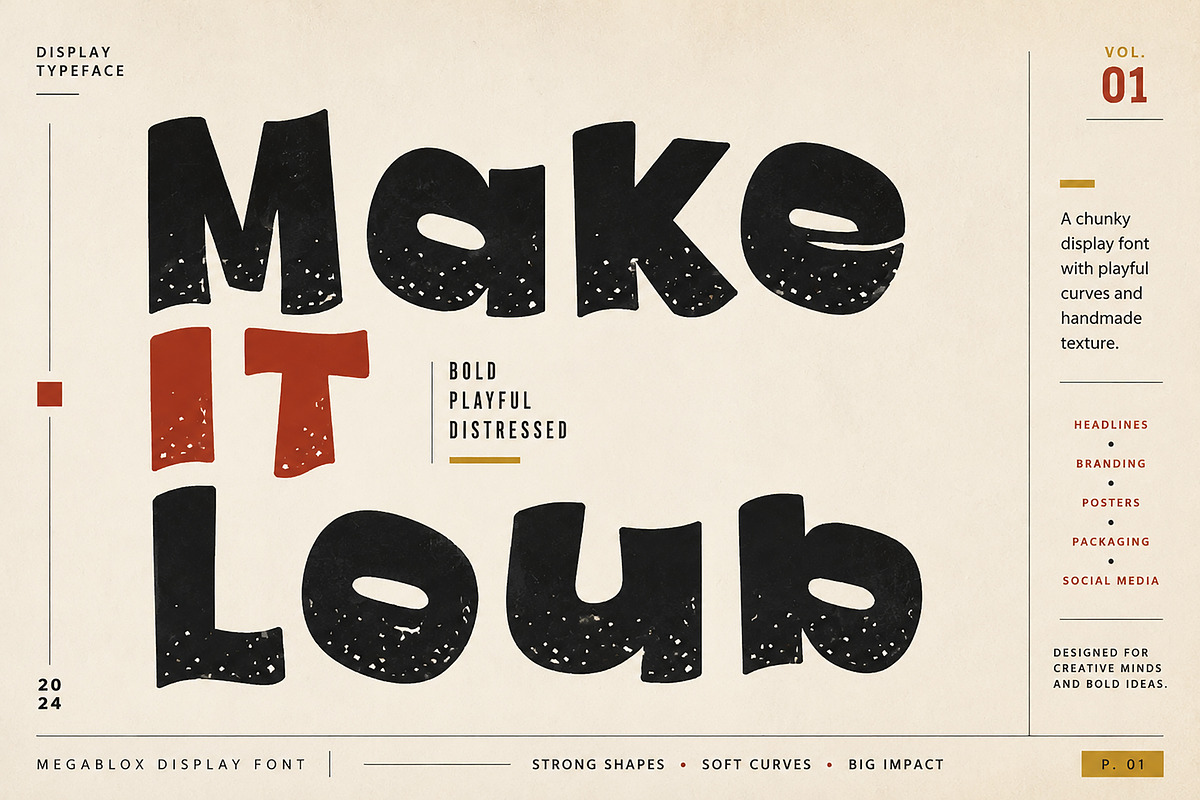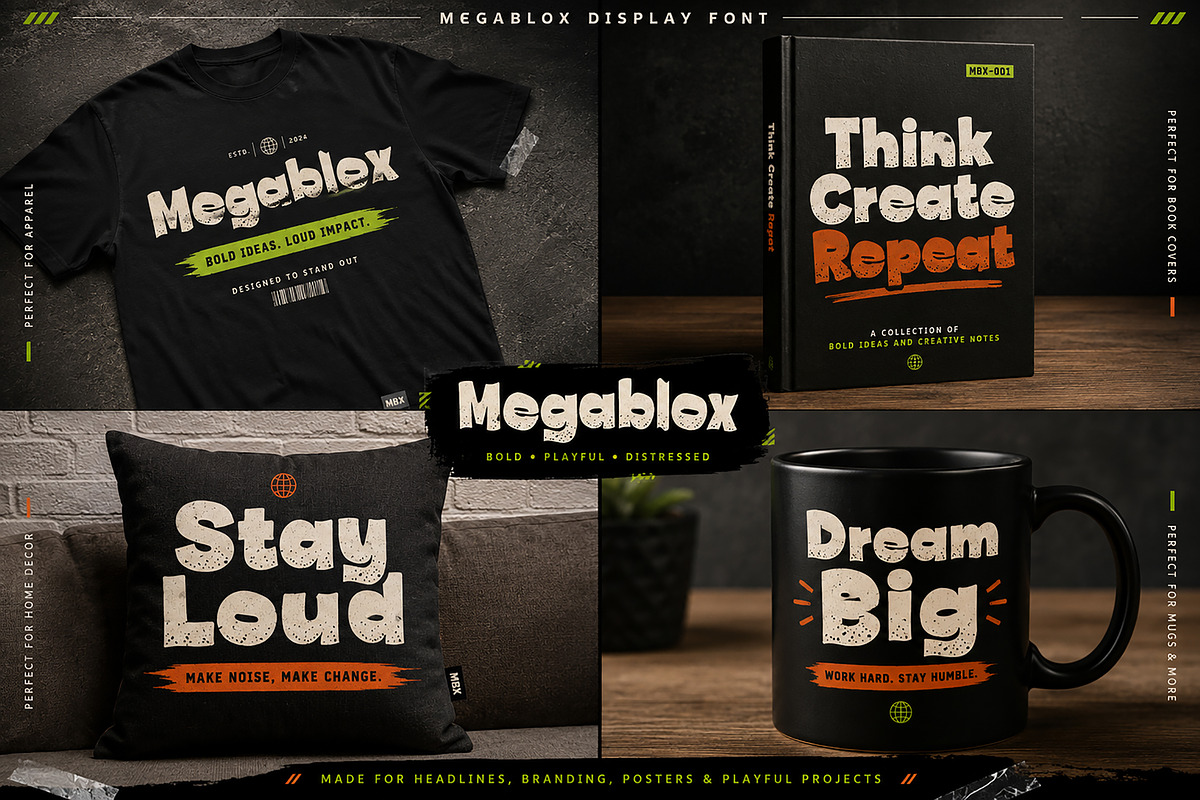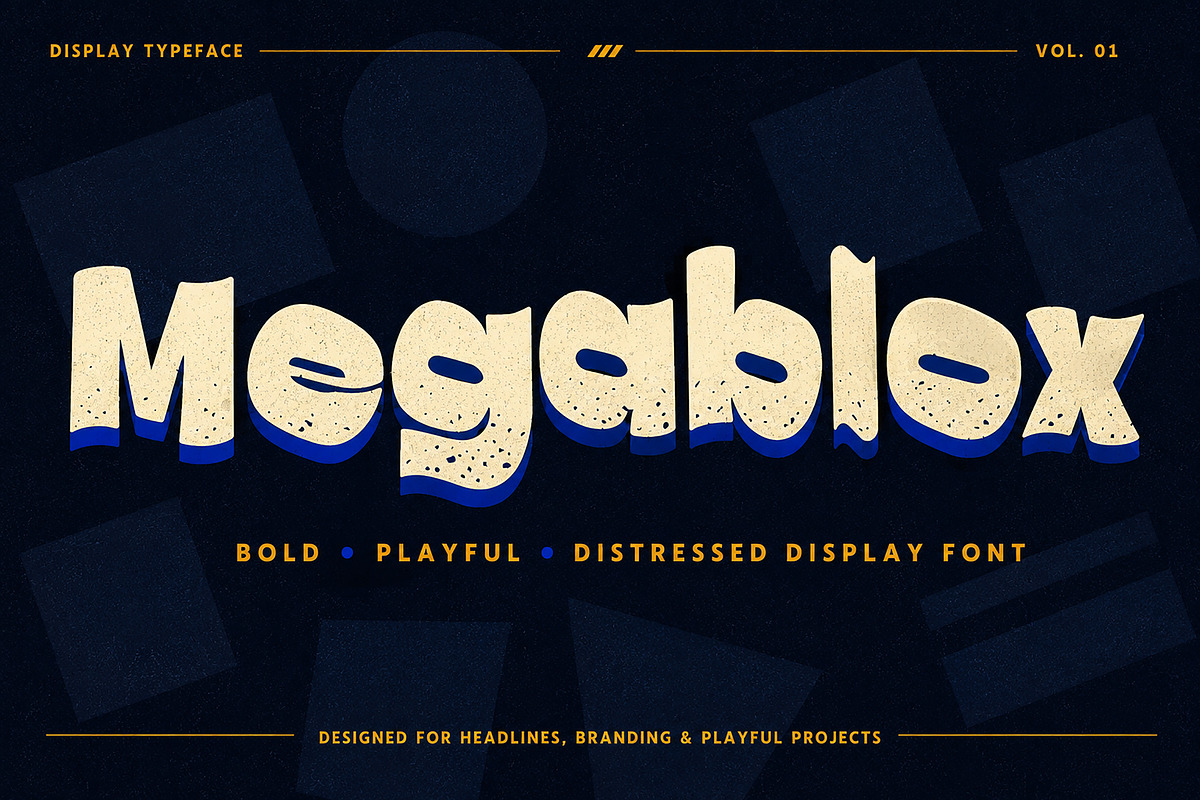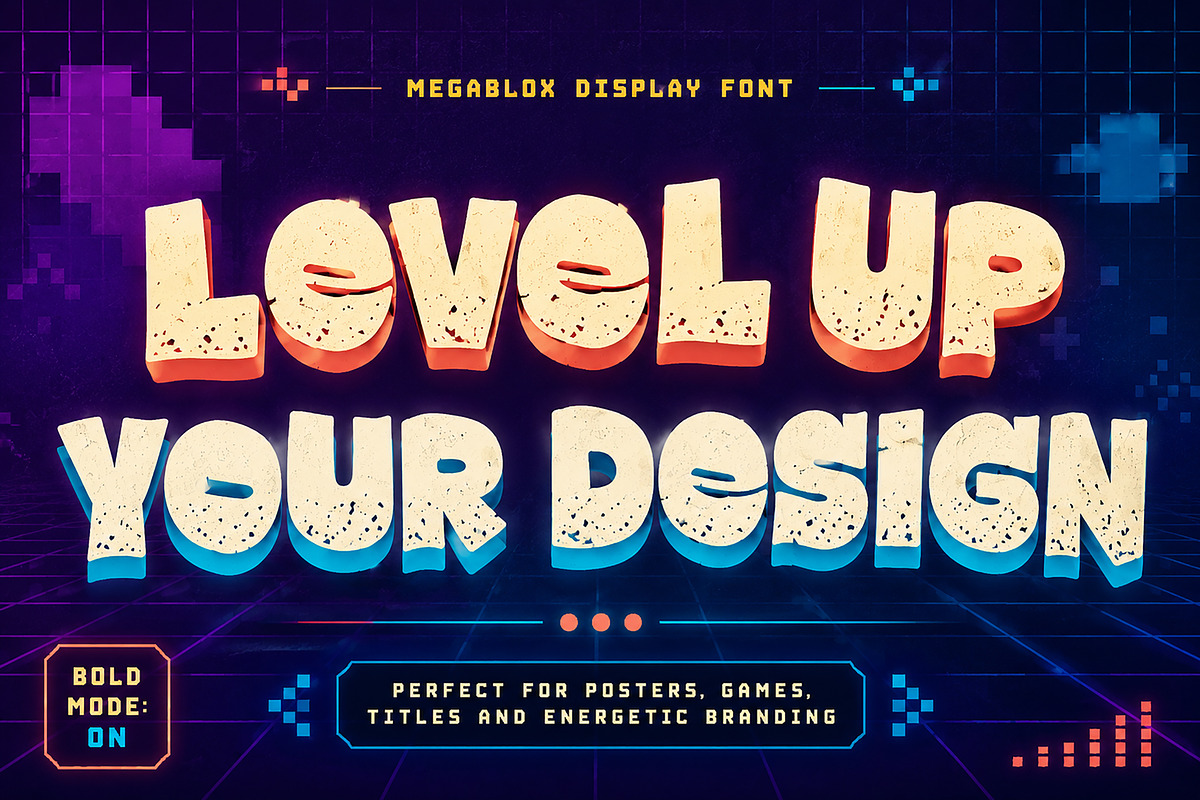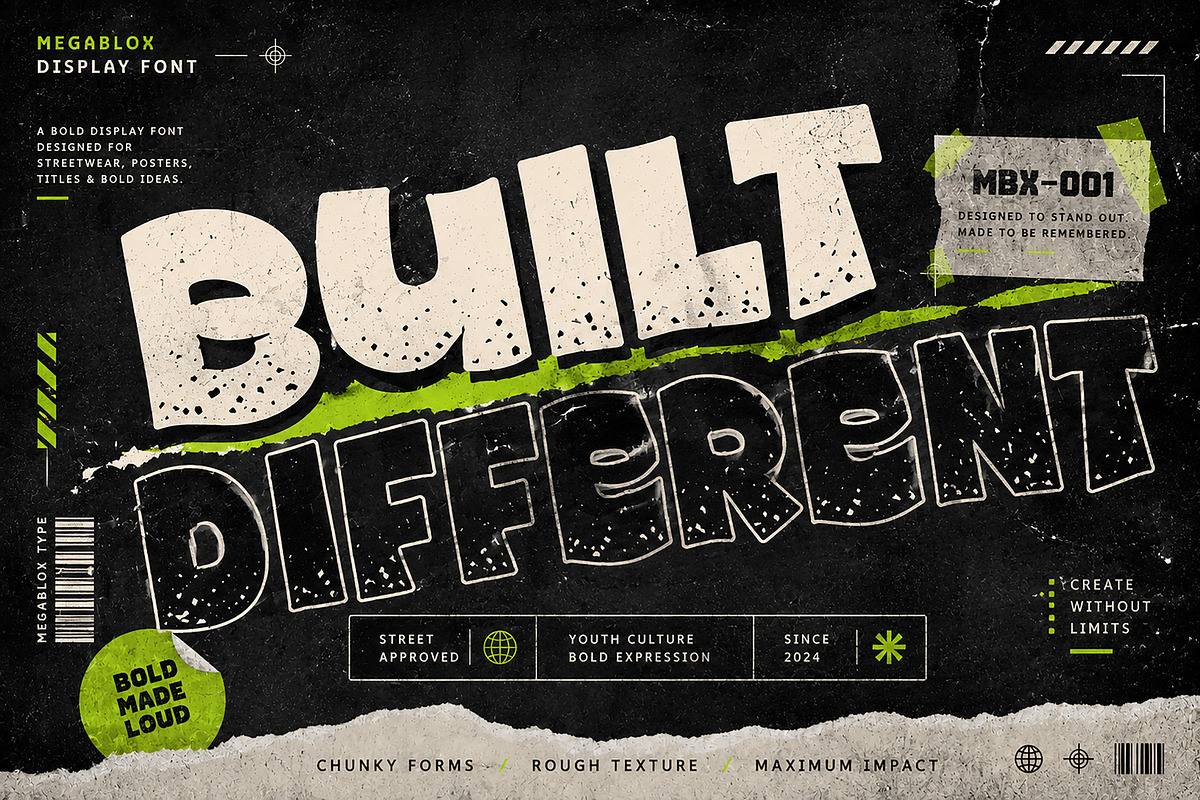
Megablox
Megablox – Playful Distressed Display Font
Description
Megablox is a bold, playful display font with chunky letterforms and a handcrafted distressed texture that instantly grabs attention. Designed to make headlines stand out, it combines fun curves with a strong visual presence, making it perfect for creative projects that need personality and impact.
Whether you're creating eye-catching posters, branding, packaging, YouTube thumbnails, gaming graphics, book covers, social media designs, or merchandise, Megablox delivers a bold and energetic look while remaining highly readable.
Its unique handcrafted imperfections add warmth and authenticity, giving every design a creative and modern feel.
Perfect for designers, creators, and brands looking for a fun yet professional display typeface.
Uppercase Letters
Lowercase Letters
Bold Display Typeface
Playful Letterforms
Handcrafted Distressed Texture
Clean Readability
High-Impact Headlines